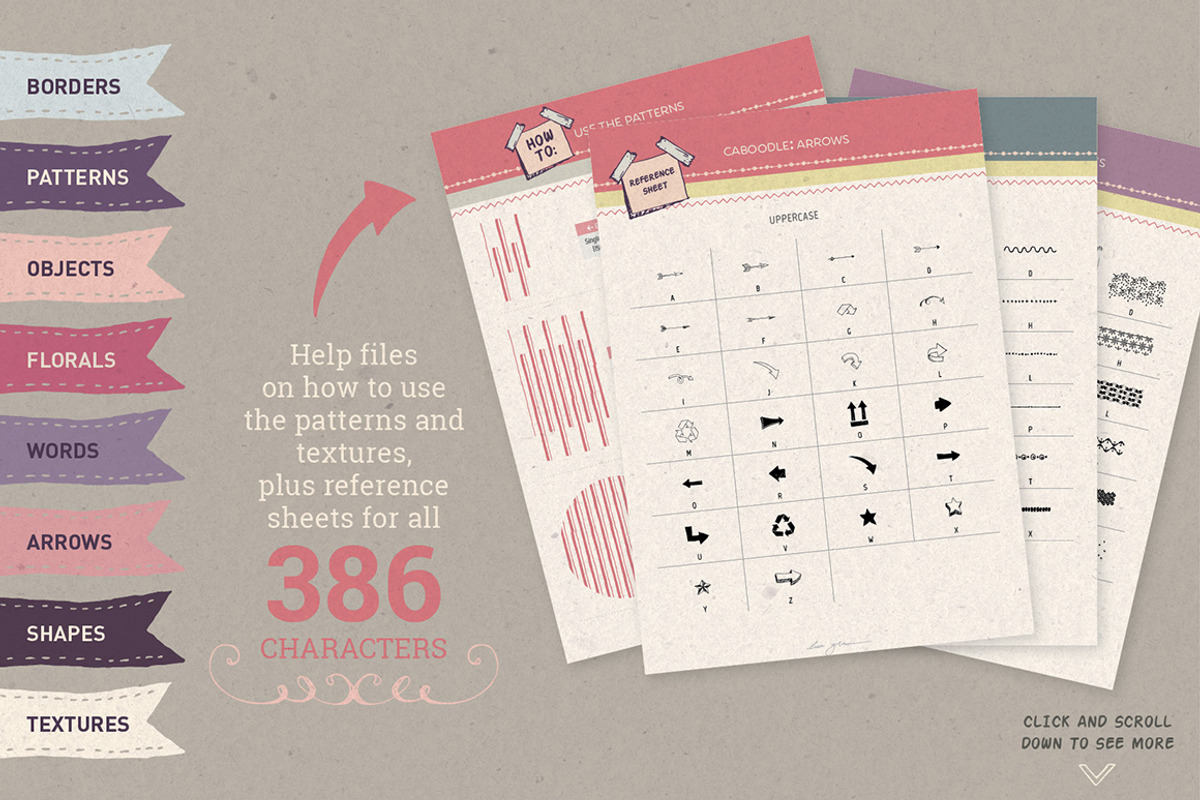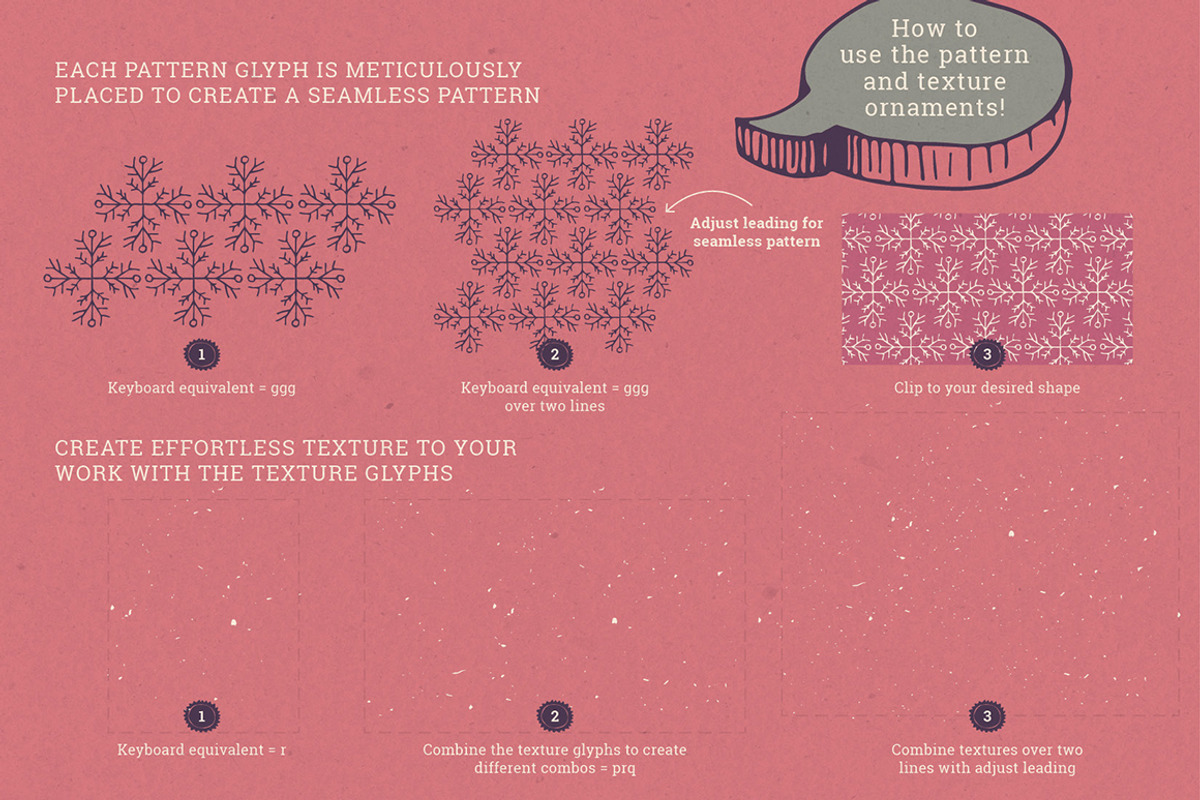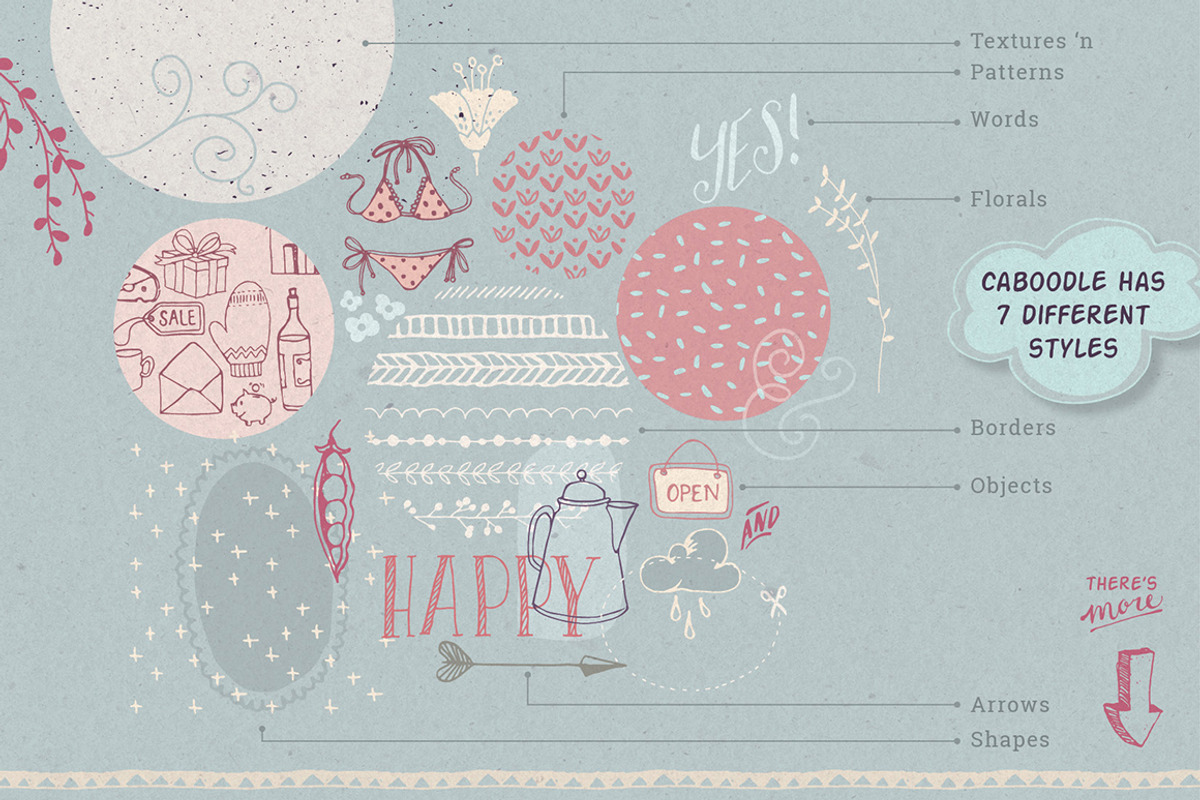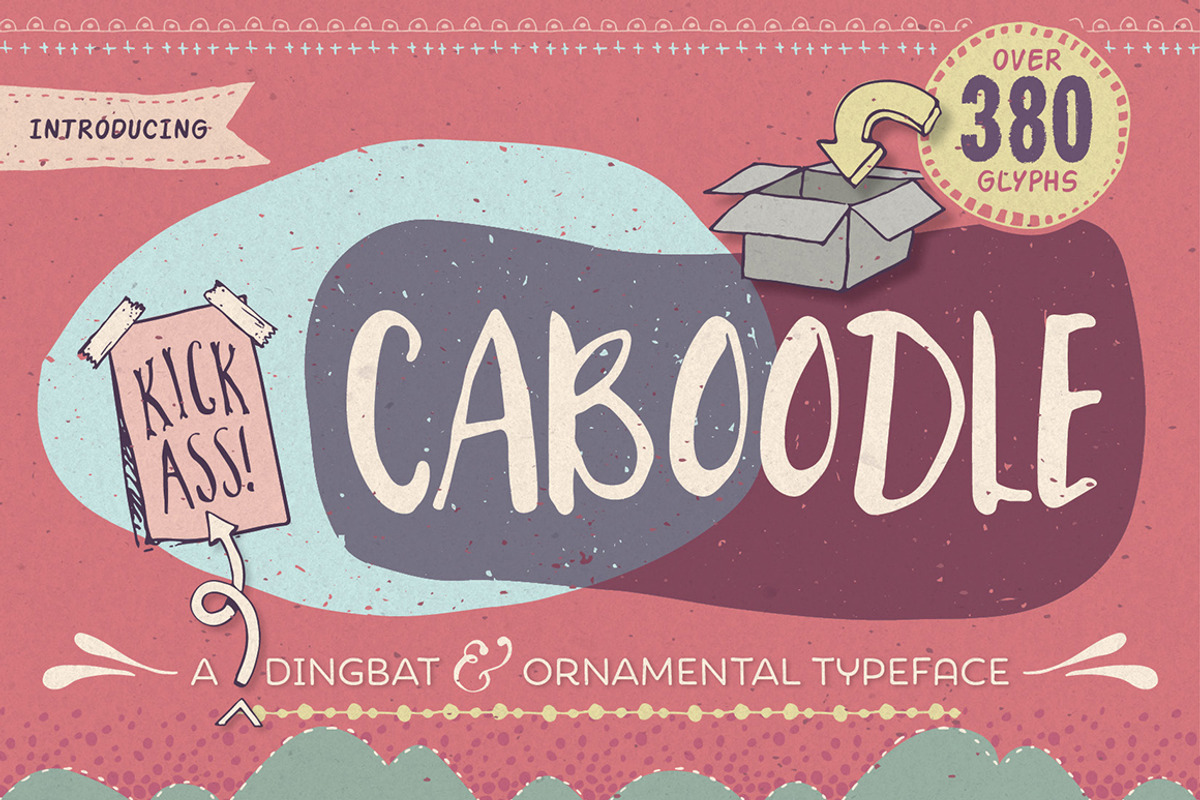
Caboodle dingbat typeface
Caboodle dingbat typeface by Lisa Glanz is a font selected for branding, posters, packaging, typography.
- Caboodle Arrows - always come in handy!
- Caboodle Borders - just repeat the keyboard equivalent to create your desired length
- Caboodle Objects - this-and-that to add a quick hand drawn illustration to your work
- Caboodle Floral 'n Decorative - can never have enough of those!
- Caboodle Shapes - pick your shape, add some text and voila!
- Caboodle Patterns 'n Textures - spice up your design backgrounds
- Caboodle Words - quickly create a hand lettered look
- Caboodle Arrows - always come in handy!
- Caboodle Borders - just repeat the keyboard equivalent to create your desired length
- Caboodle Objects - this-and-that to add a quick hand drawn illustration to your work
- Caboodle Floral 'n Decorative - can never have enough of those!
- Caboodle Shapes - pick your shape, add some text and voila!
- Caboodle Patterns 'n Textures - spice up your design backgrounds
- Caboodle Words - quickly create a hand lettered look
- With over 380 glyph characters, this little gem will speed up your workflow and make a great addition to your design resources!
Why Caboodle dingbat typeface is worth a look
Caboodle dingbat typeface by Lisa Glanz fits naturally into Branding, posters, packaging, typography.